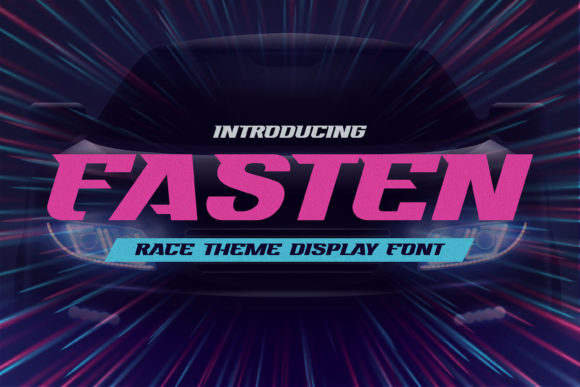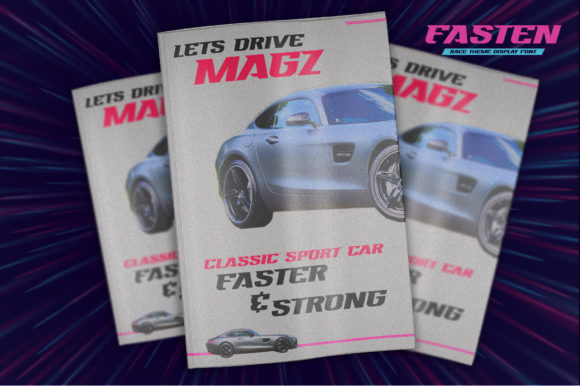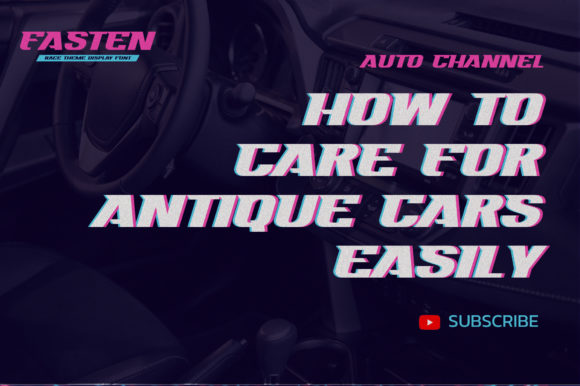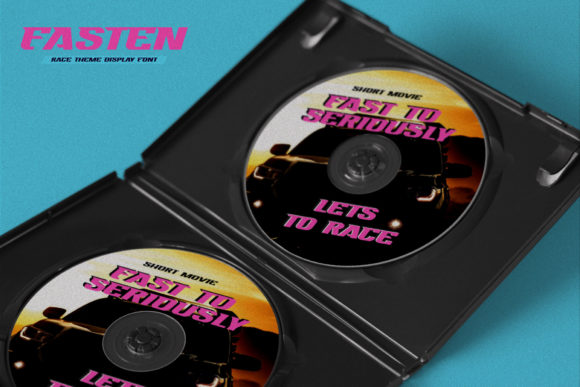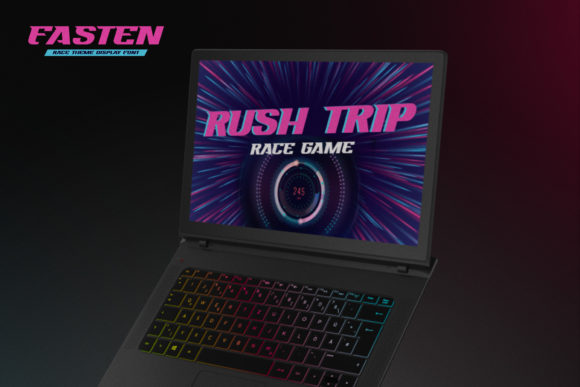
Fasten: A Race-Themed Slab Serif Font
Fasten is a dynamic slab serif font that brings a stylish and modern touch to any project. This sporty typeface is perfect for creating templates, brochures, videos, and more. Crafted manually with love and passion, Fasten will make your design stand out.
Key Features of Fasten
- Race-Themed Design: Offers a sporty and energetic look suitable for dynamic projects.
- Slab Serif Structure: Features thick, rectangular serifs typical of slab serif fonts.
- Versatile Application: Ideal for logos, printed quotes, invitations, cards, product packaging, headers, and more.
- Handmade Quality: Crafted with attention to detail to ensure a unique and standout appearance.
Ideal Uses for Fasten
Fasten’s unique characteristics make it particularly well-suited for:
- Logo design and branding
- Creative posters and advertisements
- Sports-related graphics and merchandise
- Magazine layouts and editorial designs
- Typography projects needing a bold statement
- Web layouts and digital content
- Fashion magazine headings
When incorporating Fasten into your designs, consider these tips:
- Use for headlines or short blocks of text to showcase its sporty style.
- Experiment with different sizes to highlight the font’s distinctive features.
- Consider pairing with simpler sans-serif fonts for body text to create contrast.
- Utilize its versatility across various creative projects to enhance visual appeal.
Fasten is an excellent choice for designers looking to add a race-themed slab serif font to their typographic toolkit. Its ability to bring a stylish and modern touch to various design projects makes it stand out in the world of typography. Whether you’re working on logo designs, creating layouts for sports merchandise, or developing content that requires a touch of energy, Fasten offers the perfect blend of style and functionality.
Furthermore, Fasten’s unique design allows it to shine in various contexts. From vintage-inspired designs with a modern twist to more contemporary layouts that need a touch of uniqueness, this font can elevate your projects. Its striking yet functional style works particularly well in designs that require a thoughtful and engaging mood.
In conclusion, Fasten is a font that truly captures the essence of creativity and impact in typography. Its ability to work well in both minimalist projects and more elaborate layouts showcases its flexibility. For those looking to add a touch of unique charm to their work, Fasten can even enhance themed creations with its distinctive style. It’s the perfect choice for designers seeking to make a strong, stylish impact across a wide range of creative projects.